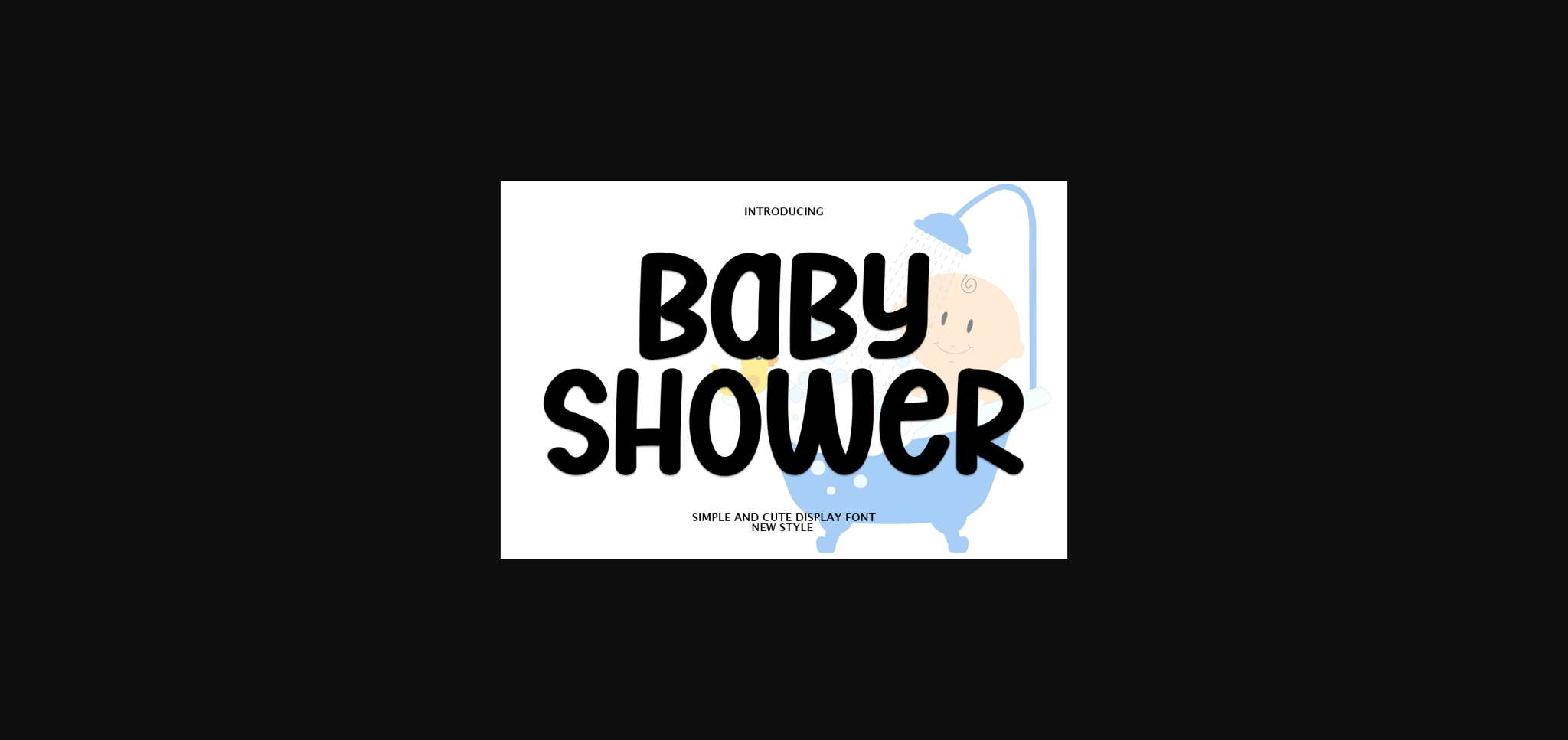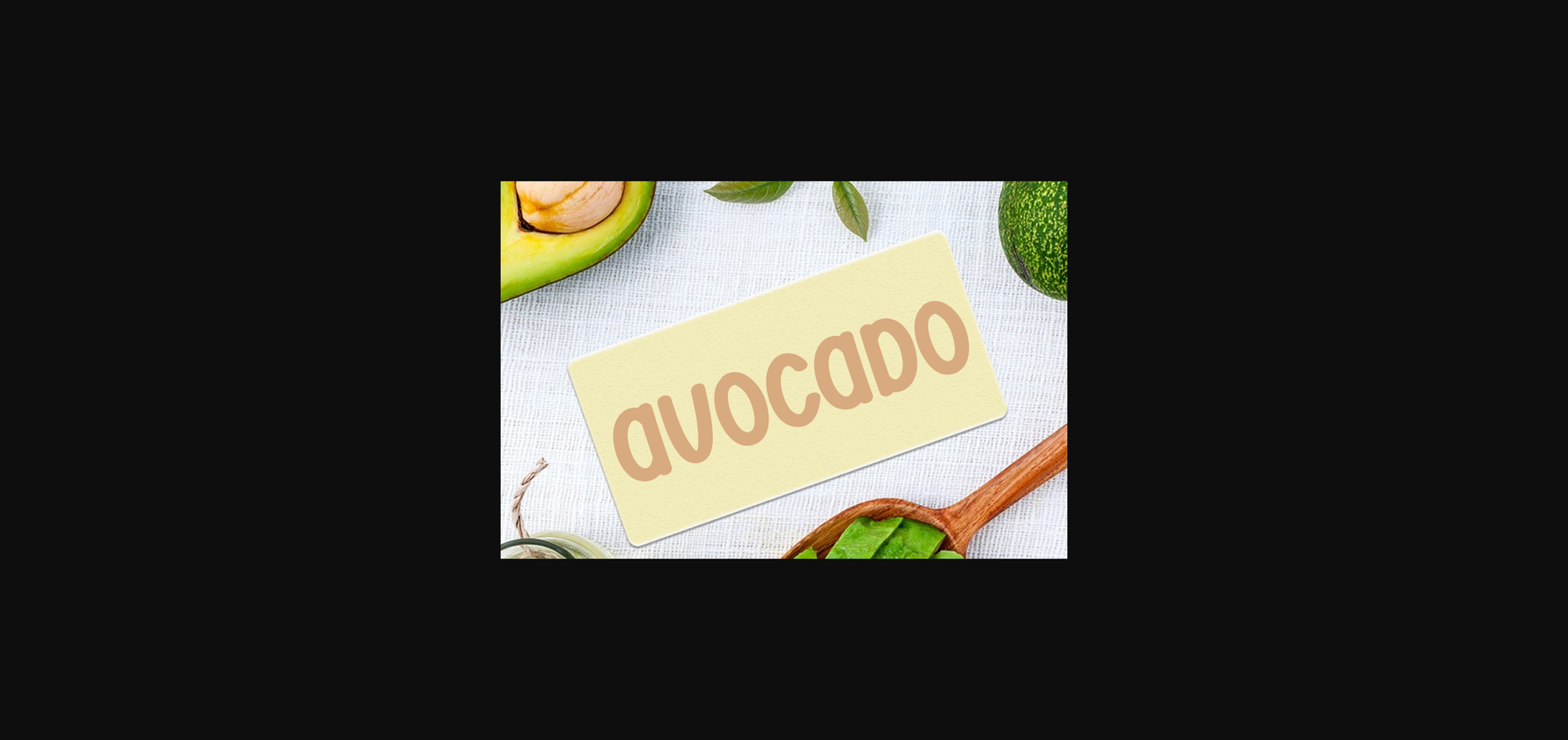
About Baby Shower Font
Baby Shower is a cool and modern sans-serif font. Whether you’re using it for crafts, digital design, presentations, or creating greeting cards, this font has the potential to be your go-to font, whatever the occasion.